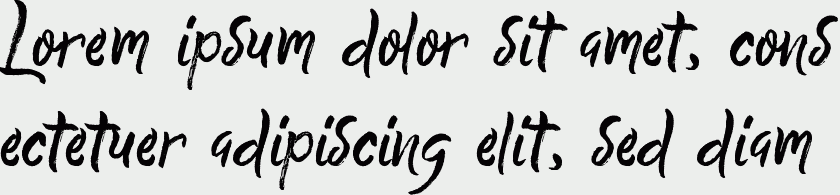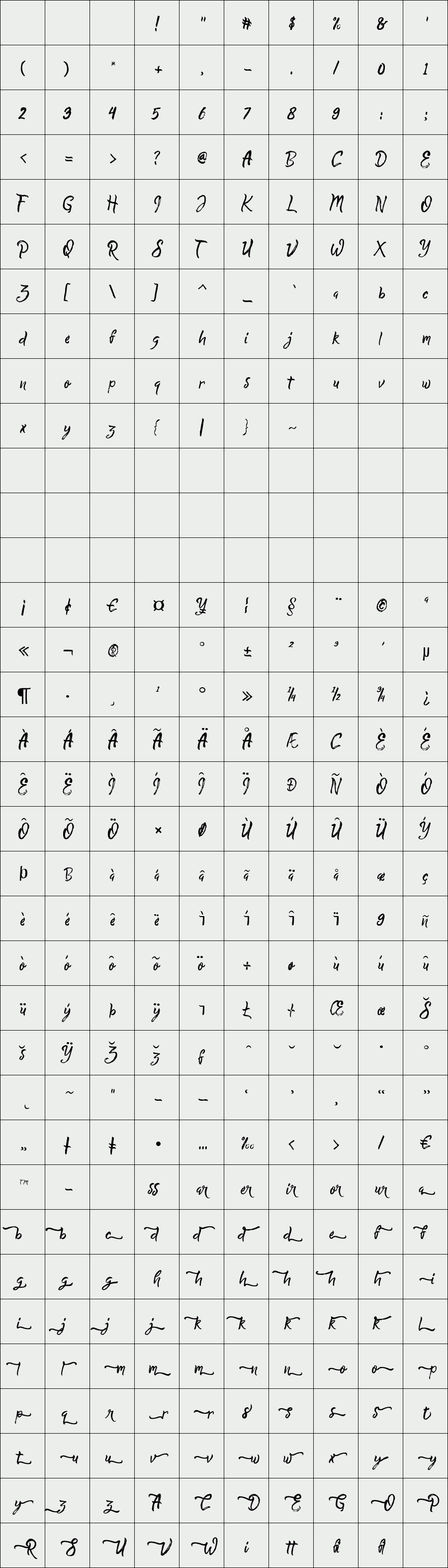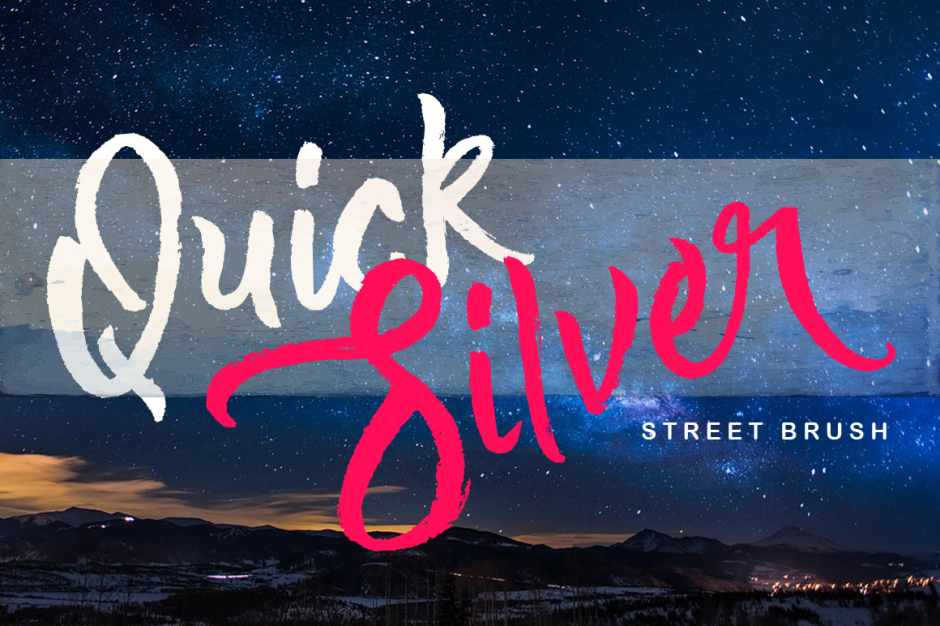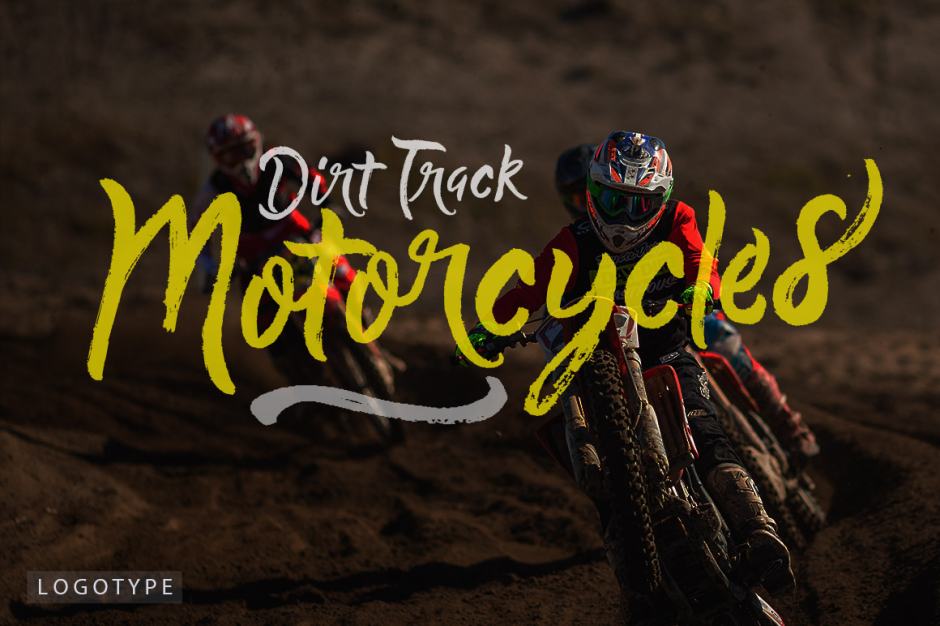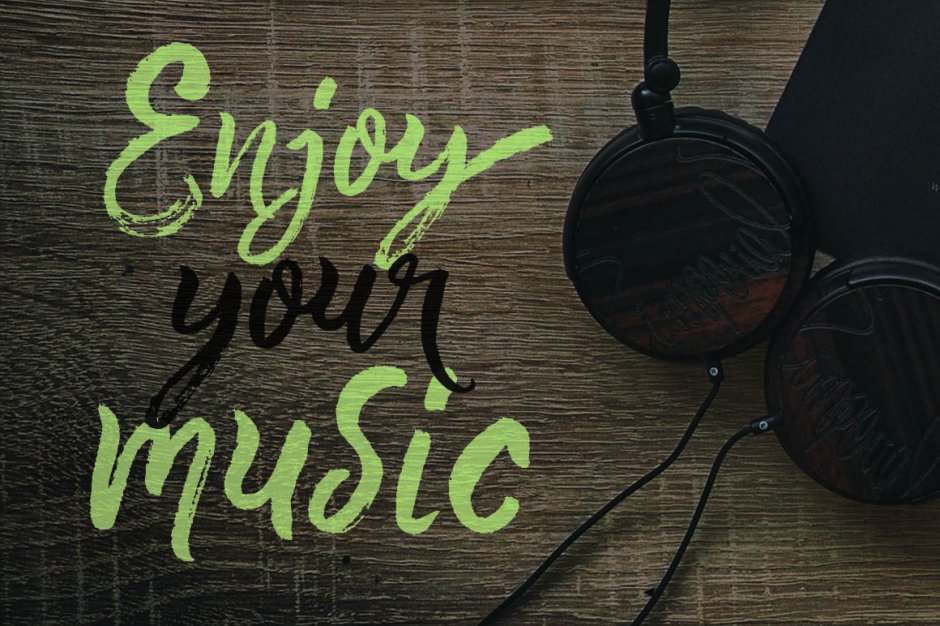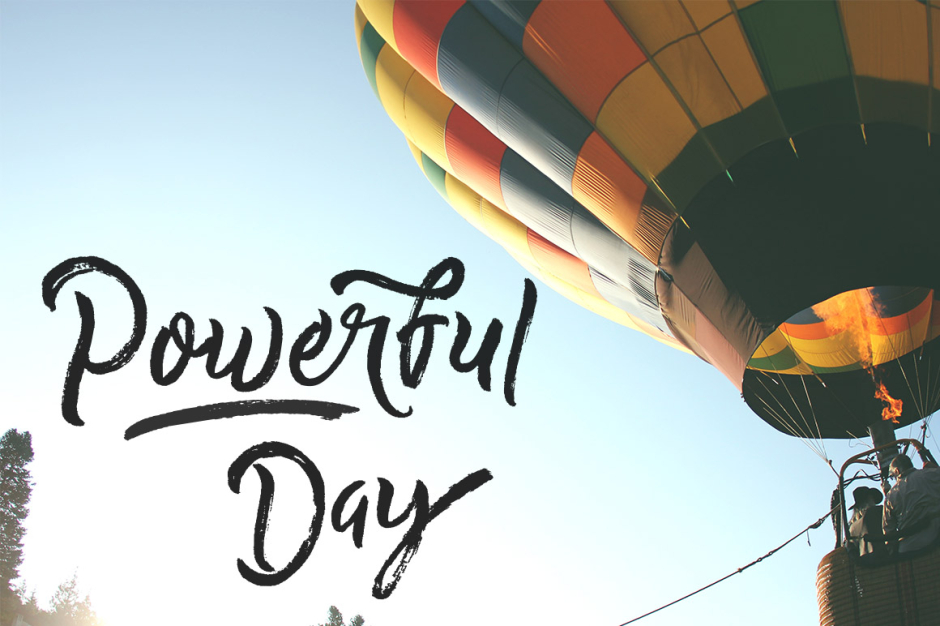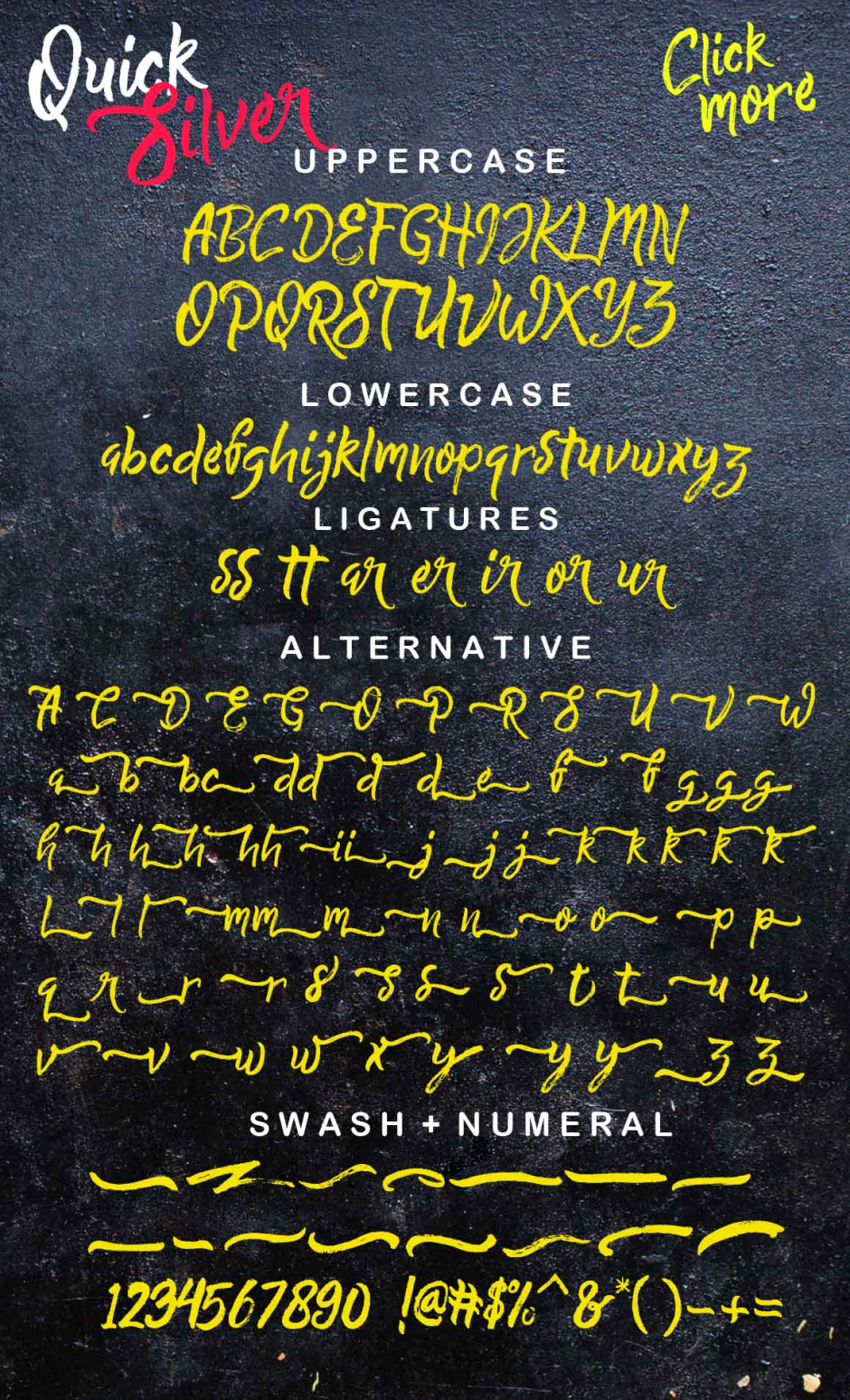
Quick Silver
Quick Silver is a Street Brushed Typeface, identical with free writing style, with authentic dry brush imperfections, and also provided some ligatures and Swashes Extra.
Brand new stylish textured fonts and Make it easy for made logotype Handlettering Style. It will be great for Logotypes, Posters, Digital Lettering Arts, Clean Design, Branding Design, Sign, Merchandise and Social Media Posts.
Quick Silver is a Street Brushed Typeface, identical with free writing style, with authentic dry brush imperfections, and also provided some ligatures and Swashes Extra.
Brand new stylish textured fonts and Make it easy for made logotype Handlettering Style. It will be great for Logotypes, Posters, Digital Lettering Arts, Clean Design, Branding Design, Sign, Merchandise and Social Media Posts.
Designer: Putra Khan